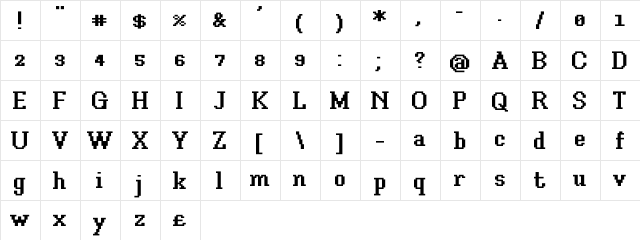
Xilla Bold Font Preview
Xilla Bold
Xilla Bold Font Details
| Designer | Will Albin-Clark |
Design Context for Xilla Typeface
Xilla takes a measured approach to typography — its balanced proportions and neutral character make it a reliable workhorse for both digital and print work. Its bold stroke weight gives it real presence on the page.